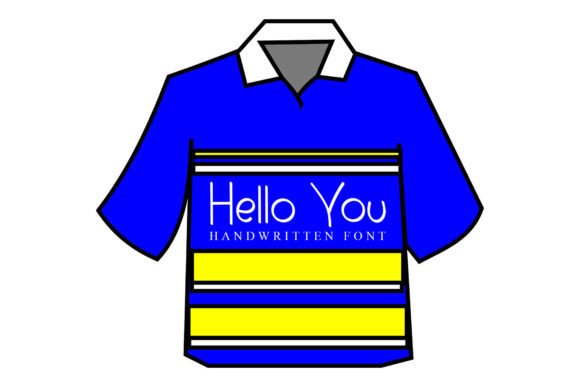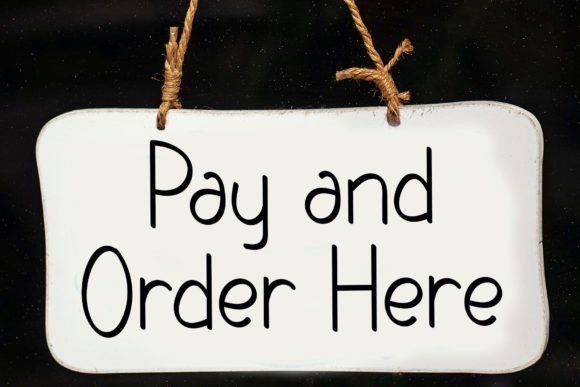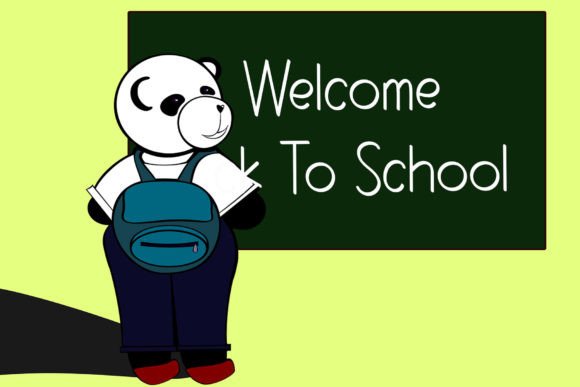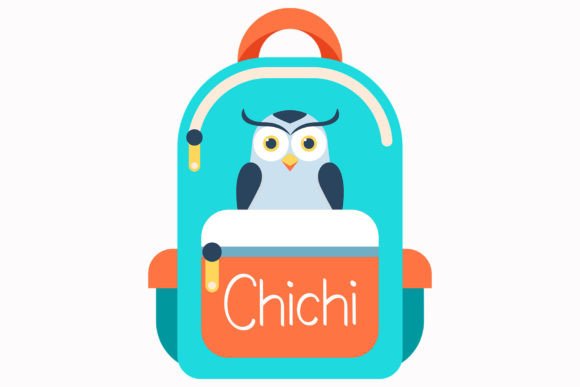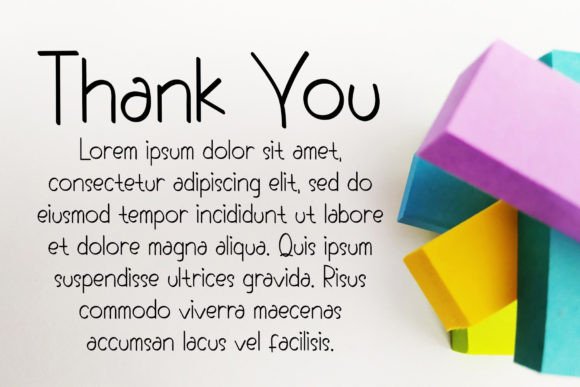
Introduction to Material Font
Material is a unique and elegant font.
Looks great on wedding invitations, greeting cards, billboards, logos, business cards, and any other design that requires a handwritten touch This font features varied baseline, created with a natural, hand-made touch.
Key Features of Material Font